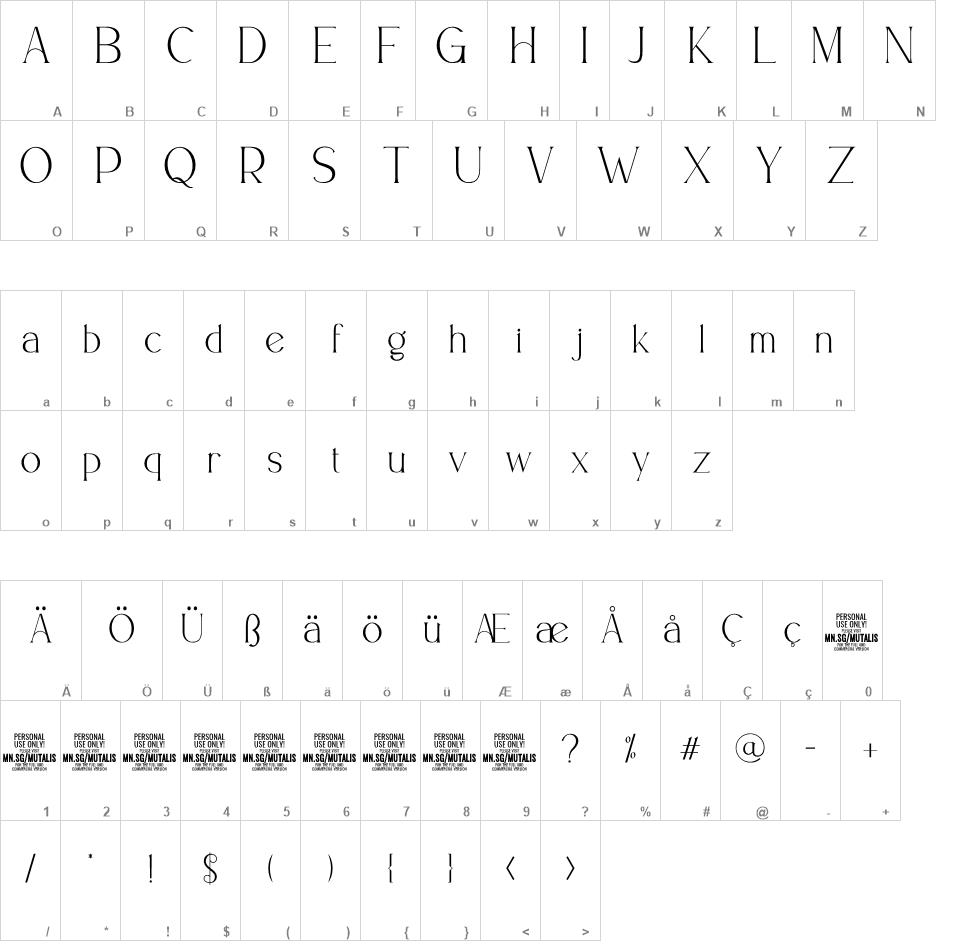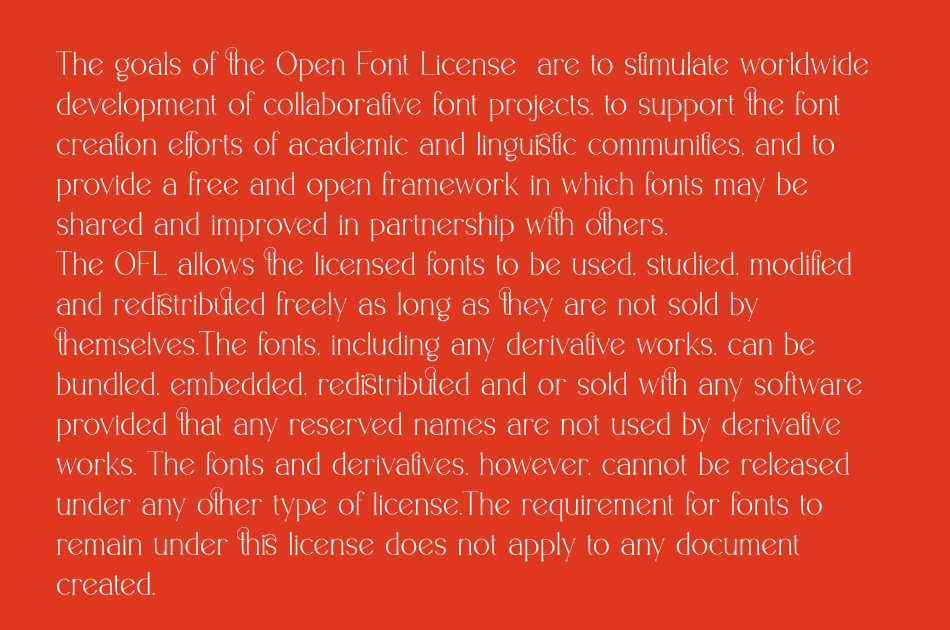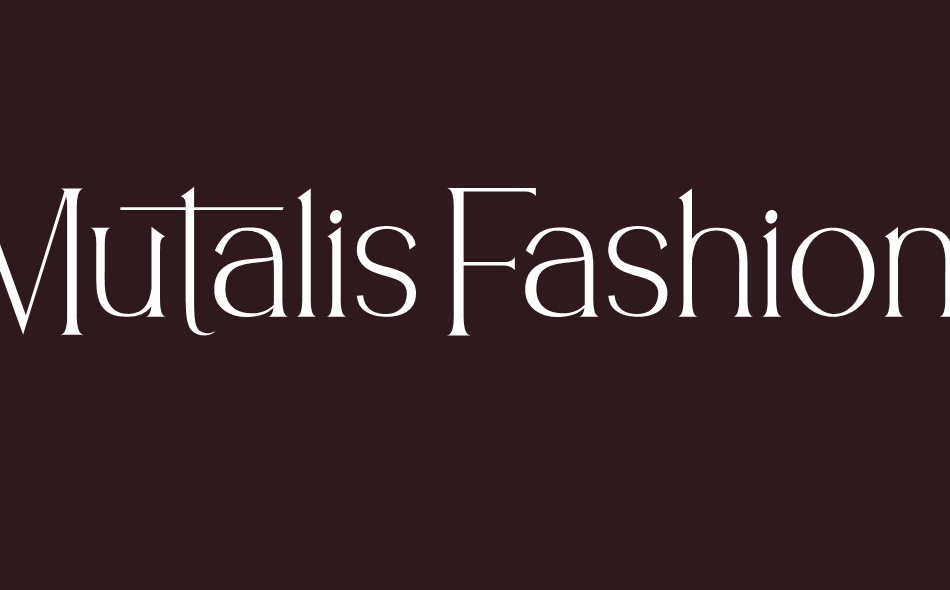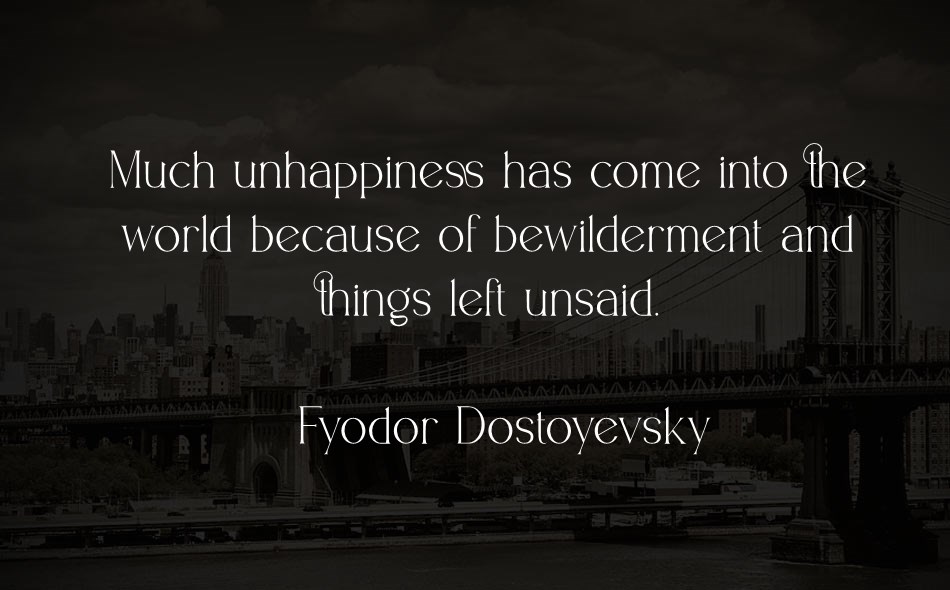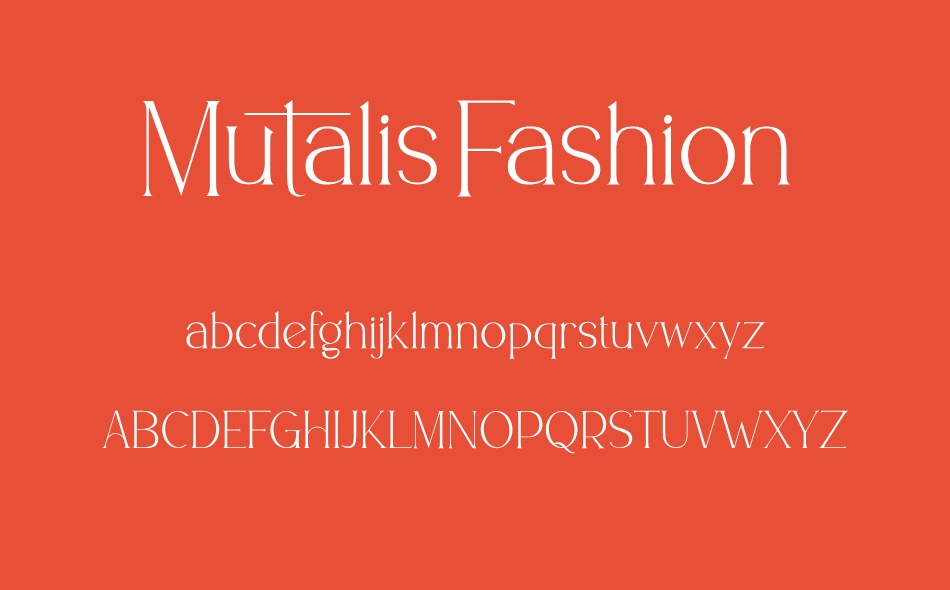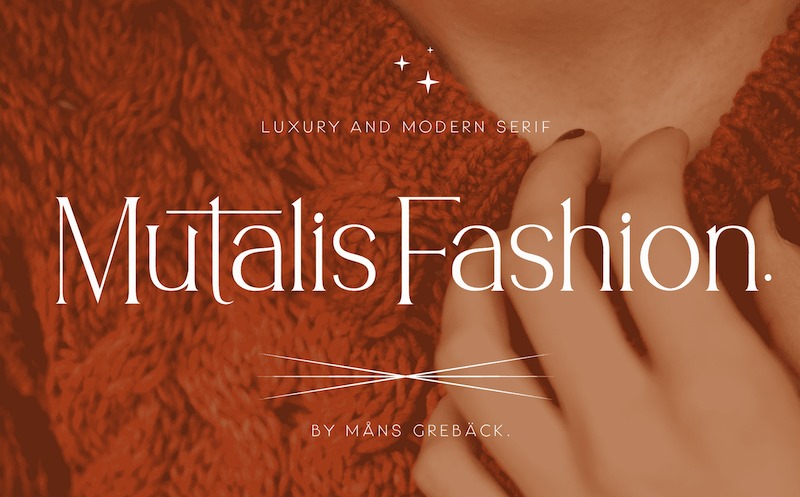
Mutalis Fashion font
Mutalis Fashion is the epitome of contemporary elegance. This font is the perfect blend of modernity and tradition, featuring a sleek design with delicate serifs that add a touch of sophistication. This font is clean and versatile, making it the ideal choice for fashion-forward projects. With its innovative and inventive style, Mutalis Fashion is perfect for everything from high-end fashion campaigns to stylish websites and advertisements. Whether you're looking to add a touch of glamour to your designs or simply want to create a clean and sophisticated look, Mutalis Fashion is the perfect font for the job.
The Mutalis Fashion family consists of Regular and Italic.
The font is built with advanced OpenType functionality and has a guaranteed top-notch quality, containing stylistic and contextual alternates, ligatures and more features; all to give you full control and customizability. It has extensive lingual support, covering all Latin-based languages, from Northern Europe to South Africa, from America to South-East Asia. It contains all characters and symbols you'll ever need, including all punctuation and numbers.